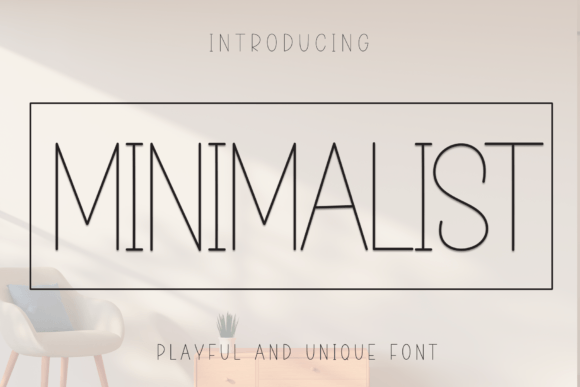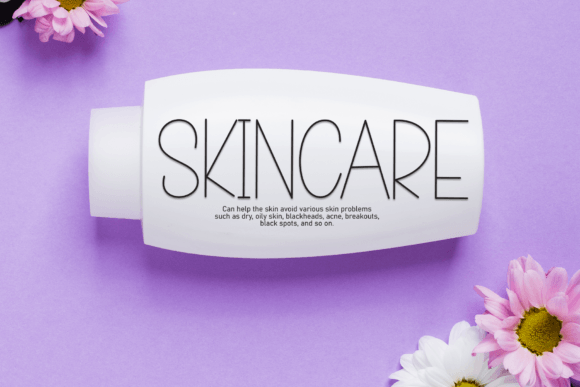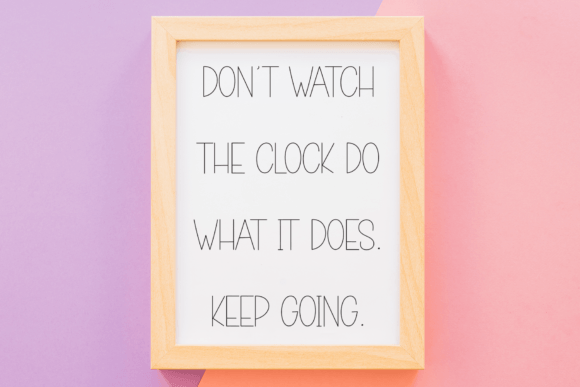
Minimalist Font Font
About the Minimalist Font Font
Crafted with precision, the Minimalist Font Font is ready to bring your ideas to life. Minimalist is a lovely and dainty handwritten font. It is the best choice for creating eye catching logos, branding and quotes. Every letter has a unique and beautiful touch, which will make your design come alive!
Minimalist Font is best suited for short headlines, logos, and branding elements where its delicate charm can shine. It excels in creating a sense of elegance and sophistication for projects targeting a feminine or luxury market. Use it sparingly; its handcrafted nature isn’t ideal for extended text or body copy. Avoid using it in user interfaces or situations requiring high legibility at small sizes.
Pairing Minimalist Font with a clean sans-serif like Helvetica Neue for body text provides excellent contrast and readability. For a more playful feel, consider pairing it with a rounded geometric sans-serif. A classic serif like Garamond could add a touch of timeless sophistication, balancing the handwritten quality of Minimalist Font.
The overall personality of Minimalist Font is elegant and refined, conveying a sense of delicate femininity and understated luxury. It’s perfect for brands emphasizing handcrafted quality, artisan products, or high-end cosmetics.
Minimalist Font Font Usage Examples
Minimalist Font Font Example